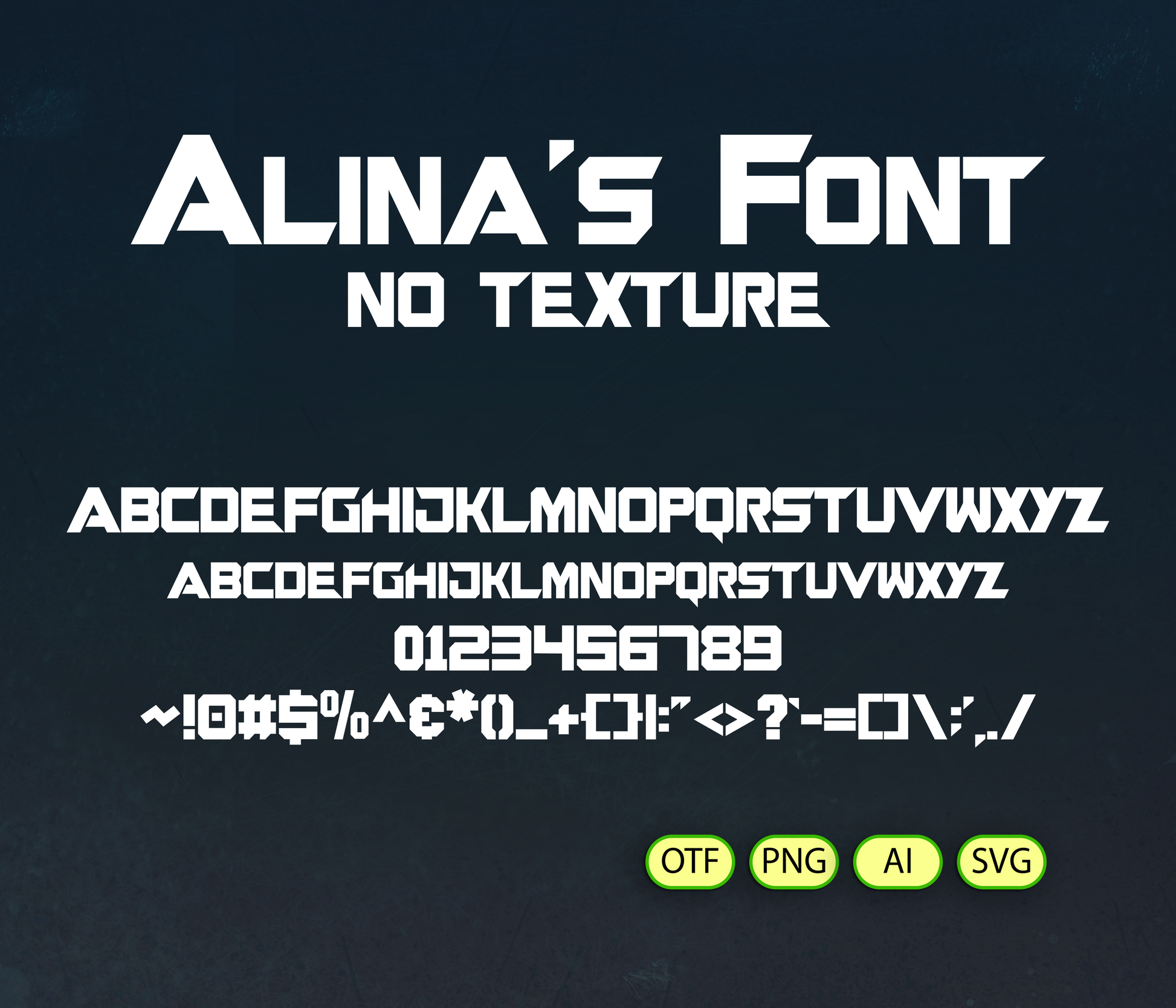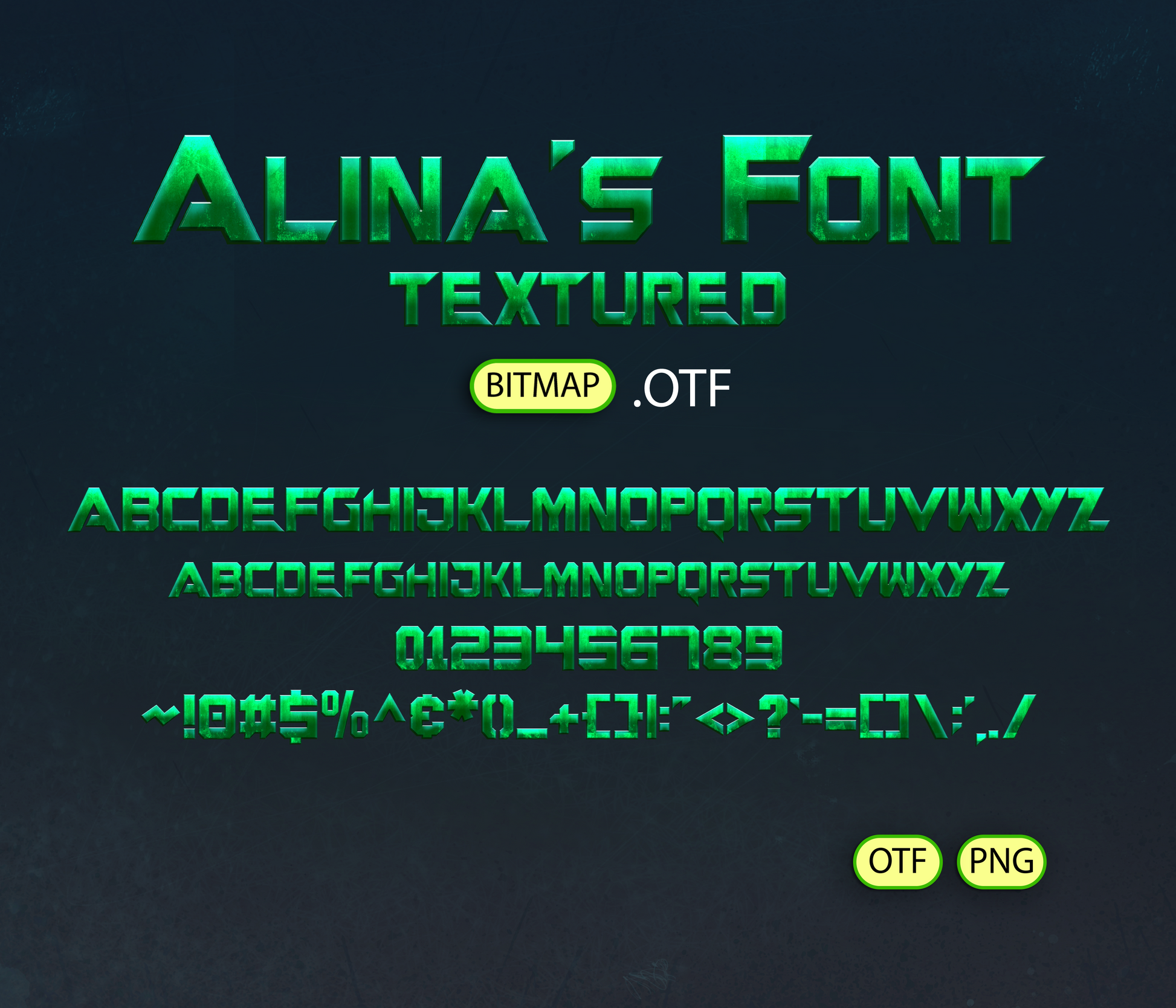
Cosmic Misfits Fonts Textured Bundle
Venture into the far reaches of the universe with our Cosmic Misfits font, a nod to blockbuster space adventure series known for interstellar journeys, eclectic soundtracks, and charismatic bands of misfits. This font encapsulates the essence of a galactic team's world, from high-energy action to heartfelt moments of camaraderie. Each character reflects the bold, adventurous, and often irreverent spirit of cosmic heroes, making it ideal for projects that aim to capture the unique blend of humor, action, and cosmic drama.
What Font is Cosmic Misfits Font?
Picture a typeface that embodies the dynamic, futuristic, and slightly rugged aesthetic of space adventure movies. Our font is carefully crafted to mirror visual flair with a touch of sci-fi elements and vibrant personality. It includes an extensive character set, featuring alphabets, numbers, and special symbols, offering a versatile toolkit for a variety of creative projects inspired by the adventures of intergalactic heroes.
What Can You Do With Cosmic Misfits Font?
1. Movie-Themed Events: Ideal for creating invitations and decorations for space adventure-themed parties or movie nights.
2. Fan Merchandise: Design t-shirts, posters, and other merchandise that resonates with fans of cosmic sagas.
3. Digital Content: Enhance websites, social media graphics, and gaming interfaces with a cosmic twist.
4. Custom Apparel: Create clothing and accessories inspired by the unique style of space-faring characters.
5. Comic Book Art and Fan Creations: Suitable for comic strips, fan art, and other creative projects.
6. Branding and Marketing: Incorporate into branding for businesses with a fun, adventurous, and edgy vibe.
7. Personalized Stationery: Craft stationery sets that reflect interstellar themes and aesthetics.
8. Home Decor: Design wall art and items inspired by cosmic adventures.
9. Event Signage and Banners: Create eye-catching signage for sci-fi themed events and conventions.
10. Creative Art and DIY Projects: Ideal for scrapbooking, crafting, and artistic projects inspired by space sagas.
• Textured and Non-Textured Variants: Choose between a version that captures the ruggedness of space or a clean, non-textured version for a more versatile application.
• Extensive Character Set: Offers a wide range of characters for comprehensive design possibilities.
The Cosmic Misfits font is more than just a typeface; it's a celebration of epic, humorous, and heartwarming sagas that have captured the imaginations of audiences around the world.